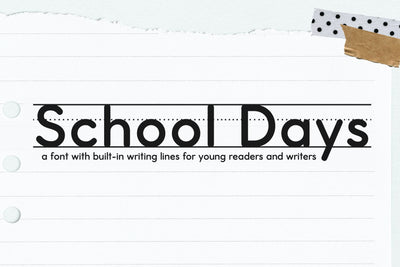
School Days - Handwriting Lines Font
SCHOOL DAYS LINES FONT
A neatly printed font with handwriting lines - perfect for teachers, creating worksheets, reading passages, students, cricut project, handwriting and more!